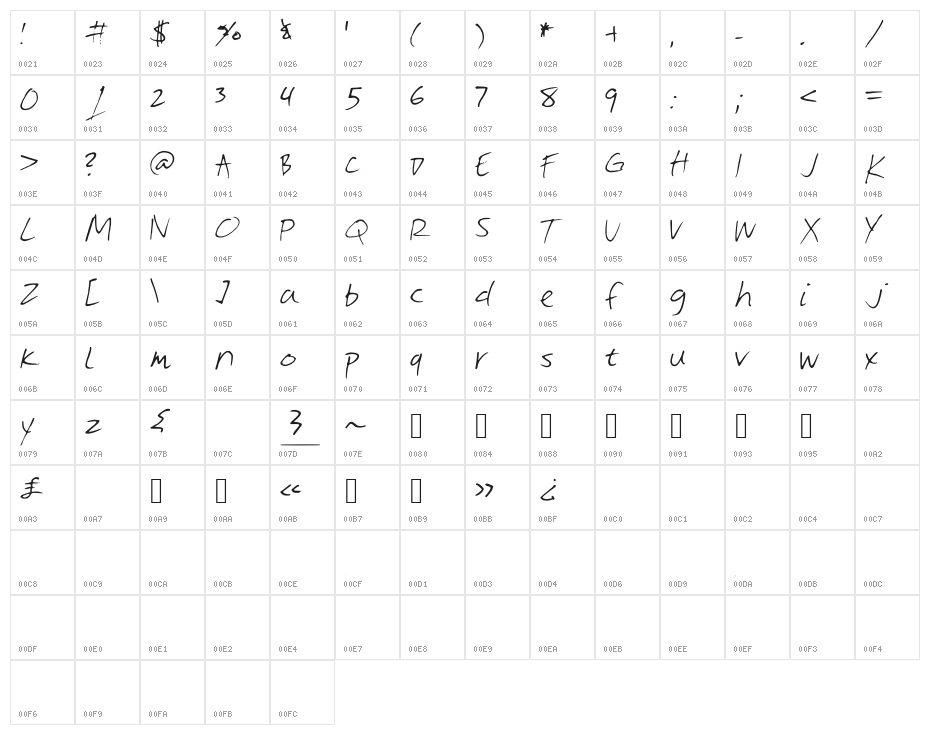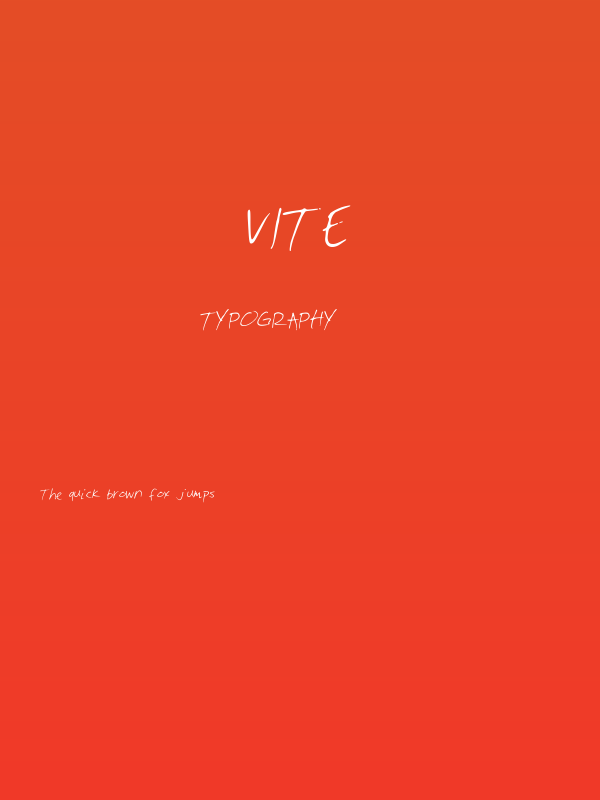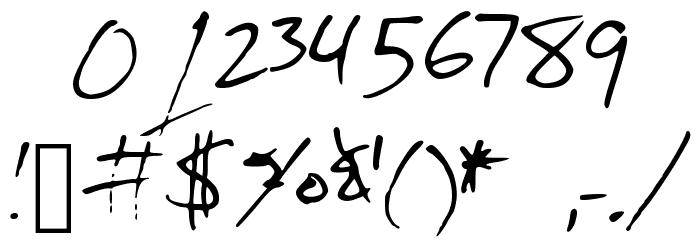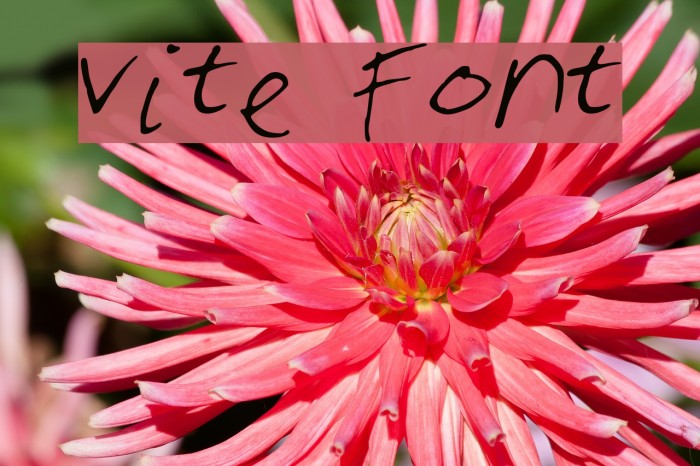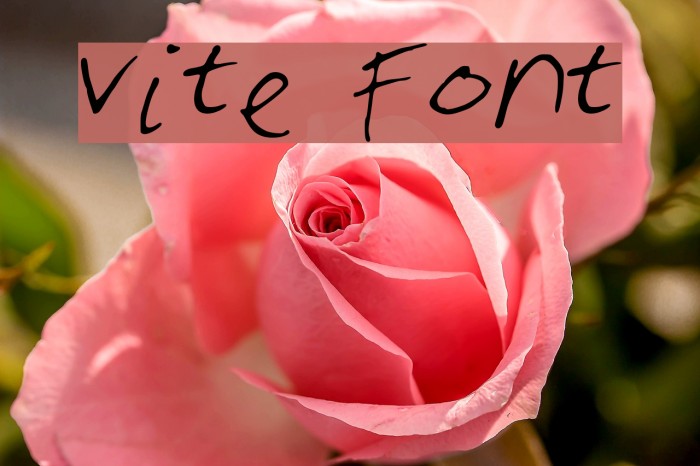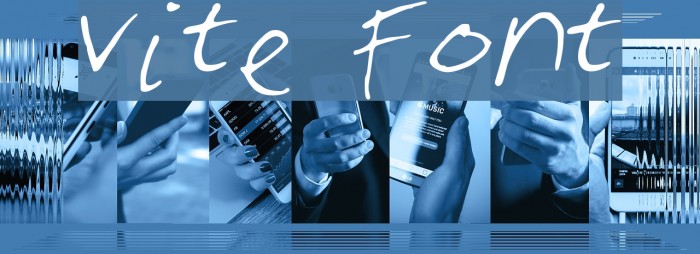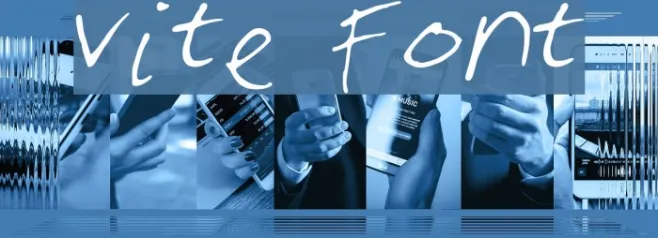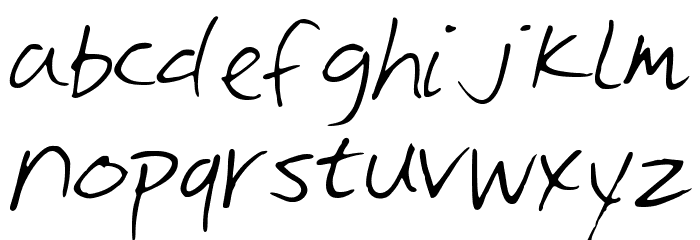
vite Font
vite Description
This font features a handwritten style with a casual and informal appearance. The letters are slightly slanted, giving a dynamic and energetic feel. The strokes are uneven, mimicking the natural flow of handwriting, which adds a personal touch. The uppercase and lowercase letters maintain a consistent style, with some variation in size and shape that enhances the authentic handwritten look. The numbers and special characters follow the same aesthetic, ensuring a cohesive appearance across all characters. This font is ideal for projects that require a personal, approachable, and creative touch.
| Overall Style | Casual, Personal |
| Proposed Projects | Ideal for personal notes, creative projects, invitations, and informal branding. |